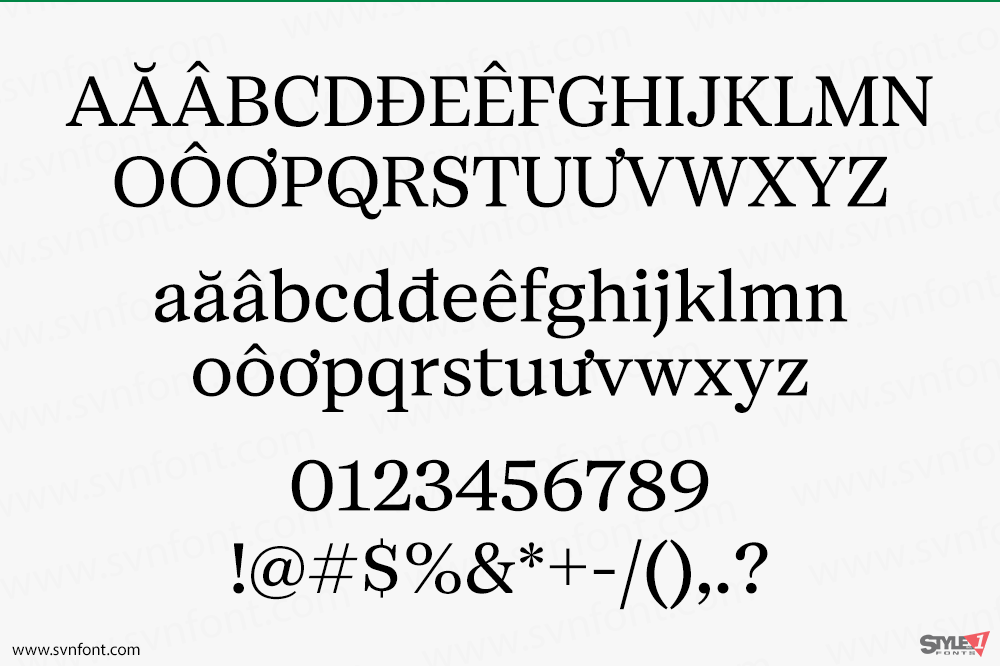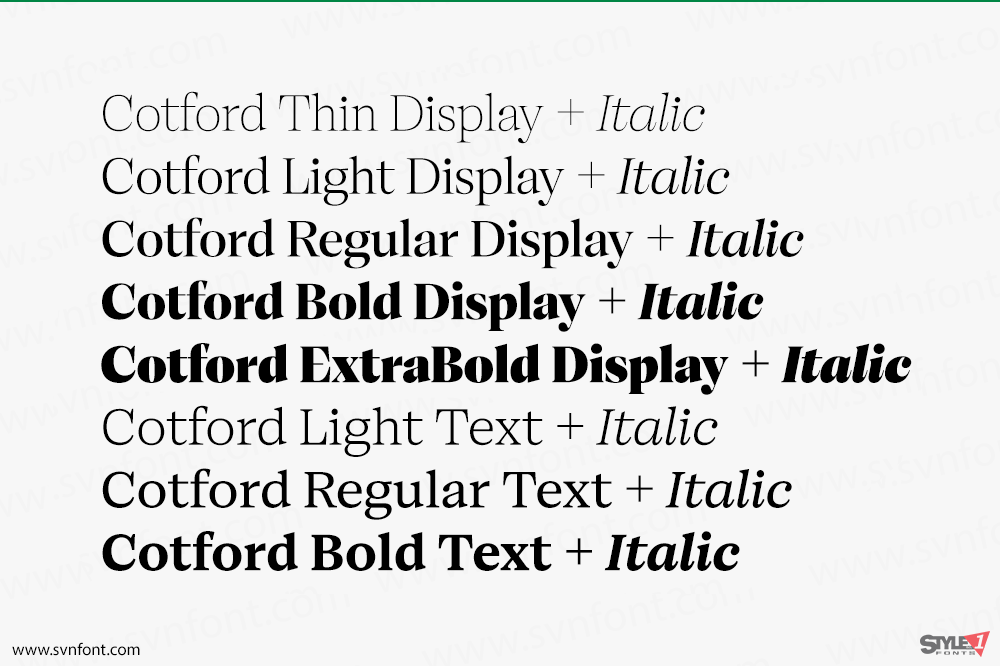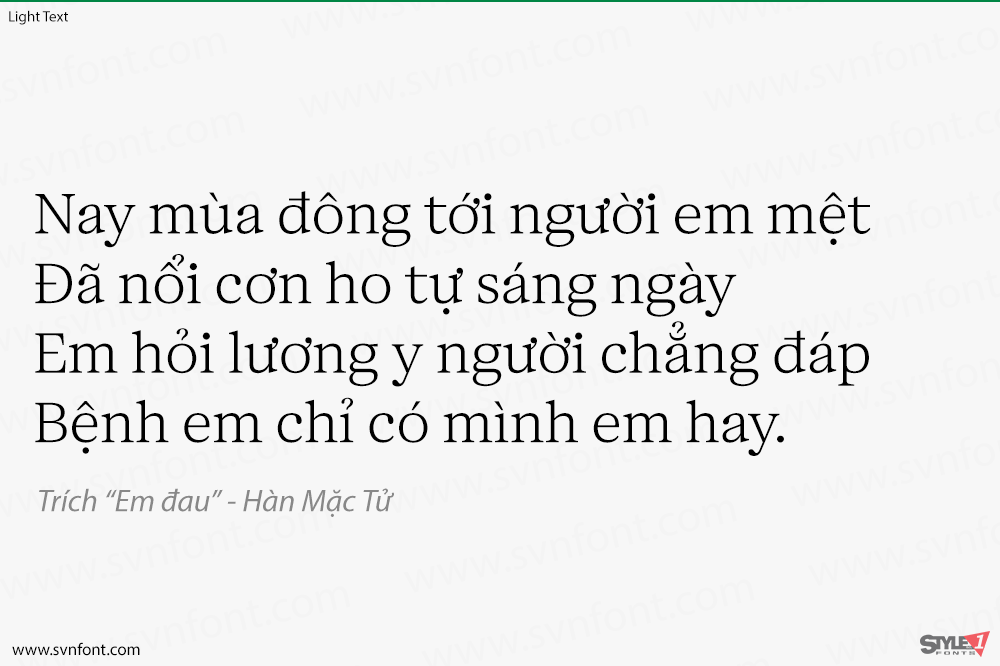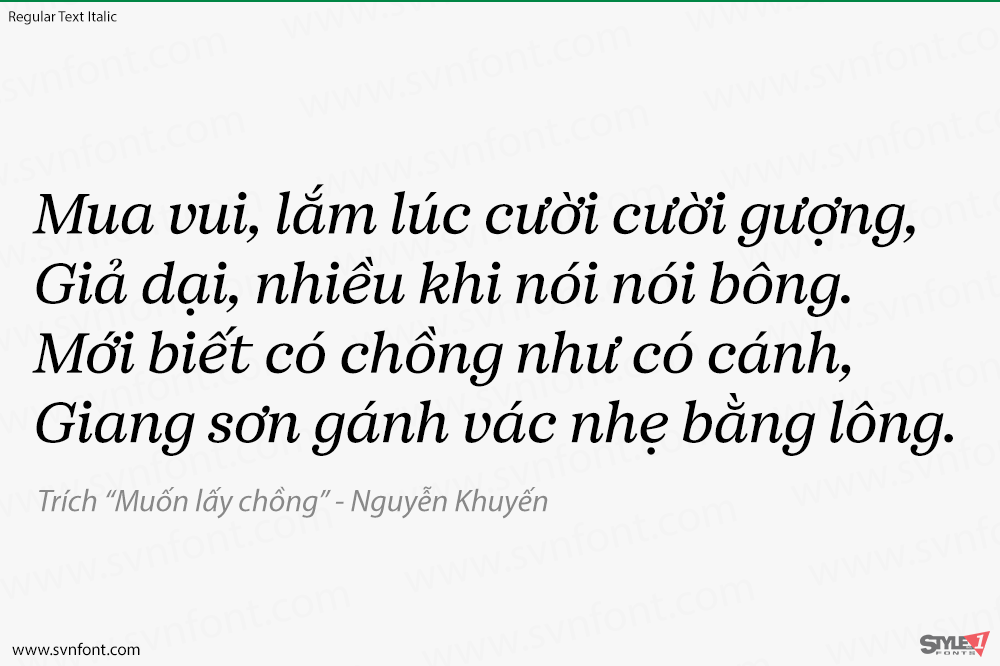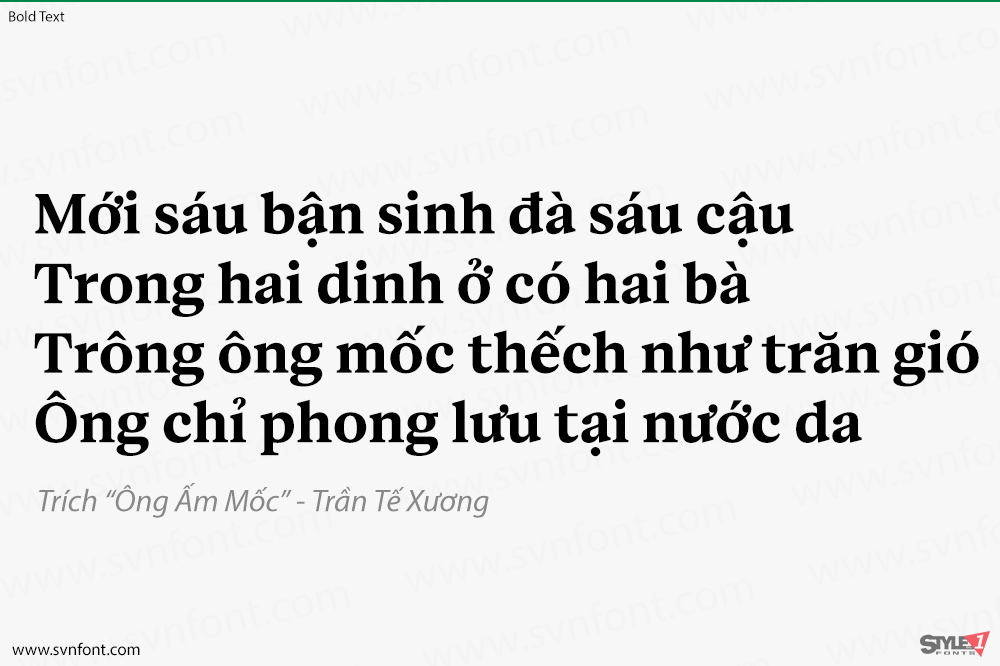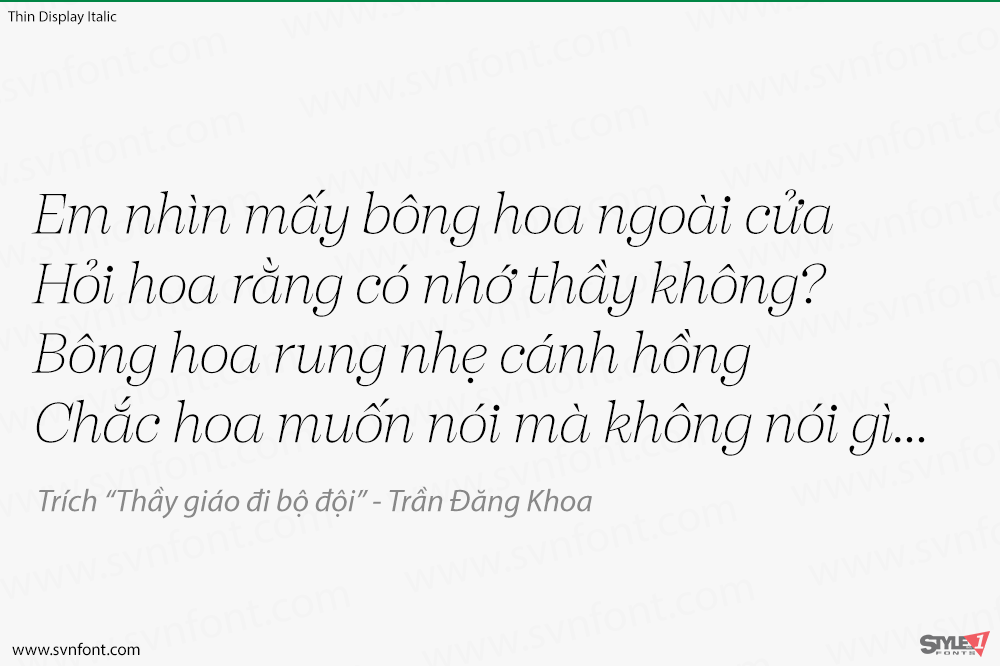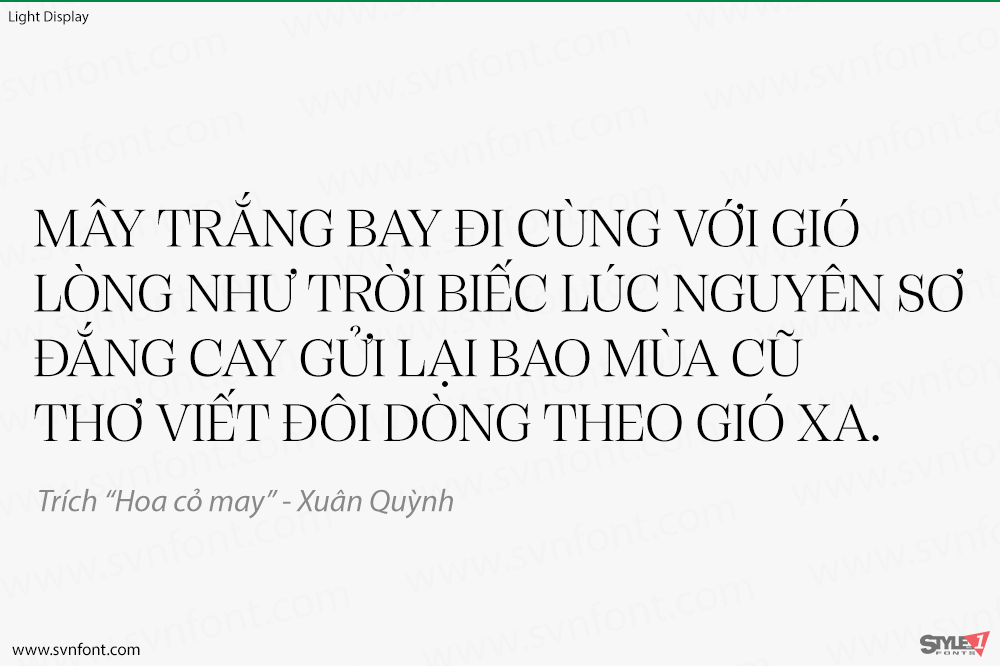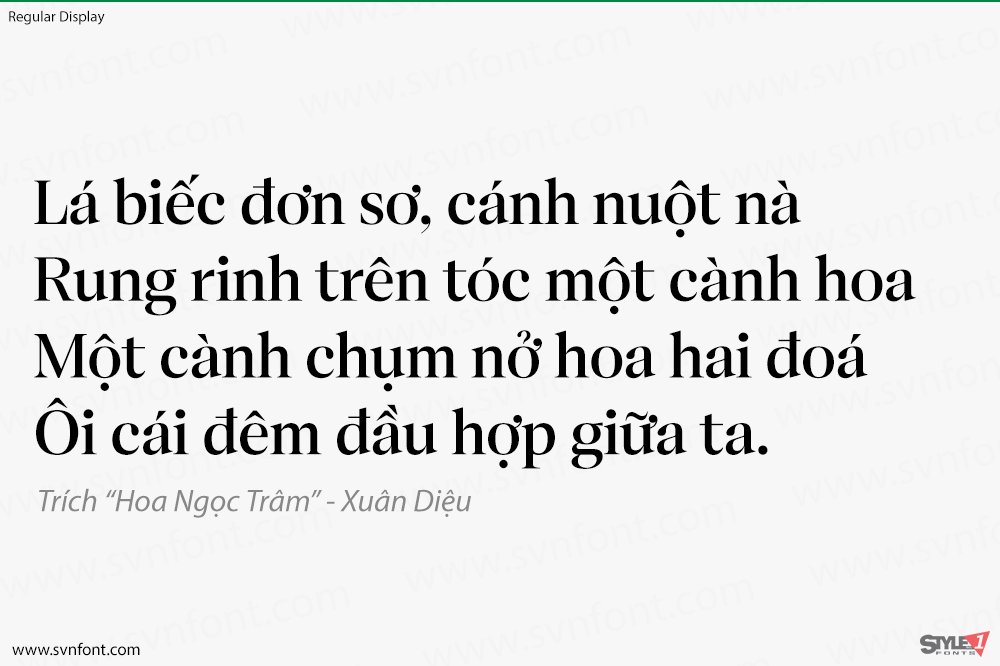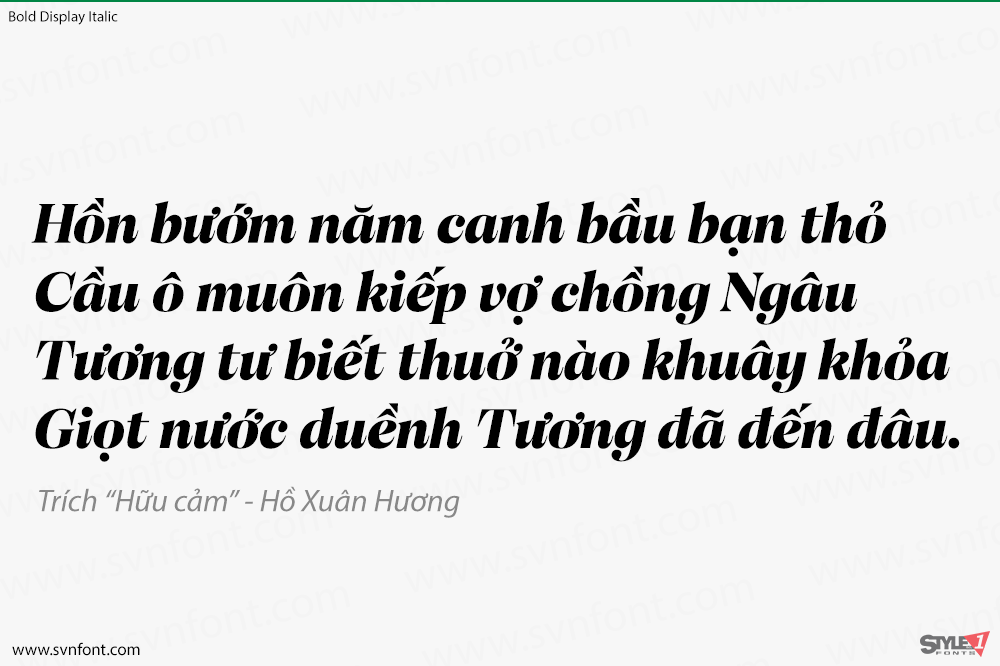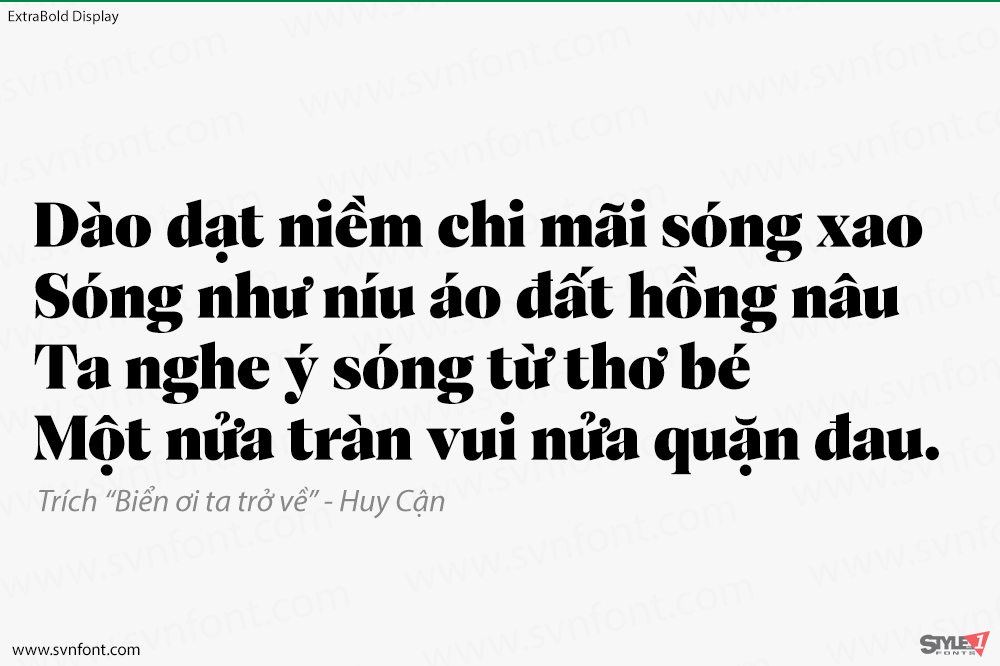
[Việt hóa] SVN-Cotford (16 fonts) + Variable
New from the Monotype Studio, Cotford is a contemporary serif from Creative Type Director, Tom Foley. Dynamic, adaptable, and surprising—Cotford is a languid serif that ranges from delicate thins, bending and reaching like flower stems, to bold heavy weights that command the page and screen with confidence and vintage charm. And as a variable font, Cotford allows designers to explore and refine the design almost endlessly, unearthing its many visual tones and hidden secrets.
Foley set out to design a soulful, contemporary serif typeface that delivers all the versatility and robustness today’s designers expect. The variable font unlocks an expandsive spectrum of visual expression that allows designers to explore, tweak, and adjust the typeface until they find the perfect weight, contrast, and optical size for their project. At the same time, Cotford’s static weights follow a traditional model of 3 text and 5 display weights, making it a strong choice for brands looking for simple implementation.
A pop serif for the digital age, Cotford takes you places.
Nhà thiết kế: Tom Foley
Nhà phát hành: Monotype